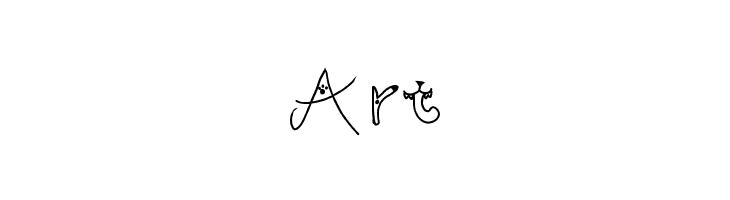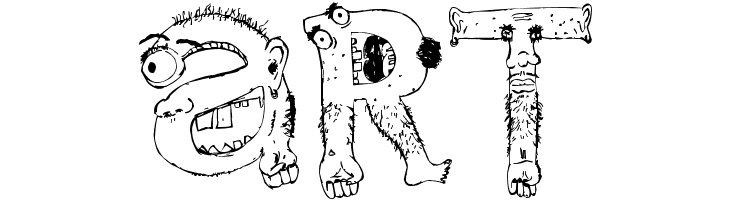
( Fonts by Kereatype Studio )
A bold, comic-inspired font with a shadow effect for a dynamic, playful look.
( Fonts by The Jackal Animatronic )
A playful, animal-themed decorative font with whimsical character designs.
( Fonts by fsuarez913 )
A bold, playful font with cartoonish, exaggerated strokes.
( Fonts by Letterafa Studio )
A playful, Halloween-themed font with hand-drawn, brush-like letters.
( Fonts by Chidiebere Udogwu )
A whimsical and cartoon-like decorative font with playful character designs.